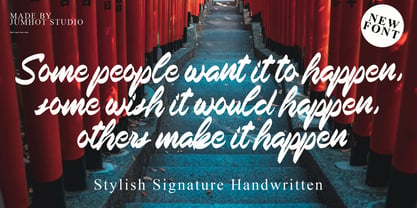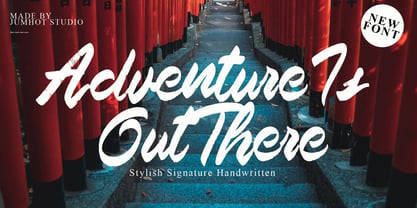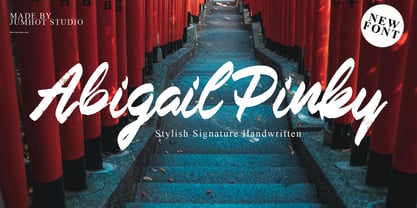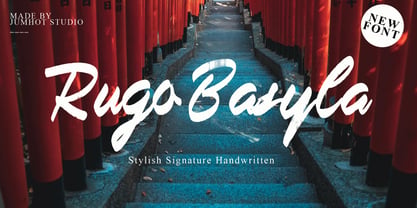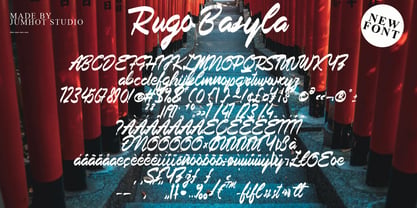
Rugo Bosyla
Experience the harmonious blending of contemporary panache and enduring charm with the Rugo Bosyla font. This handcrafted script stands as a magnificent representation of ink-brushed elegance, shaped with exceptional attention to detail. Bask in the sophisticated grace of Rugo Bosyla, injecting a unique personal element into every element of your digital composition. Its bold character is a visual magnet, accentuating your online journals, customizing your wishes, and adding emotive depth to your festive communication. Immerse yourself in the enduring charm and forward-thinking craftsmanship of Rugo Bosyla, adding a tasteful garnish to your photographs or personalized embellishments. Witness its ability to spin commonplace visuals into captivating works of art, weaving a tale of enchantment onto your digital canvas. Embrace Rugo Bosyla - your guiding light in crafting mesmerizing digital pieces. Dive into the creative depth of Rugo Bosyla and channel your artistic pulse into distinctive digital masterpieces.